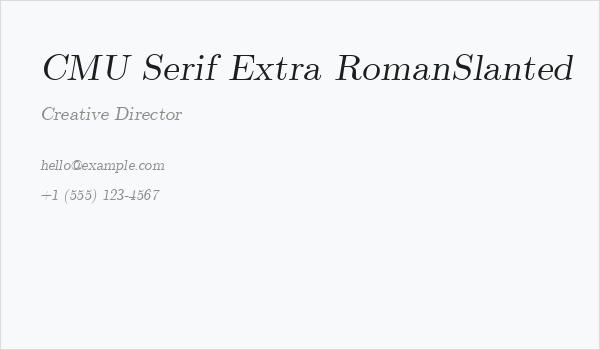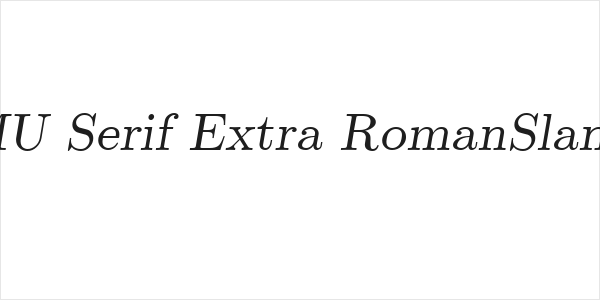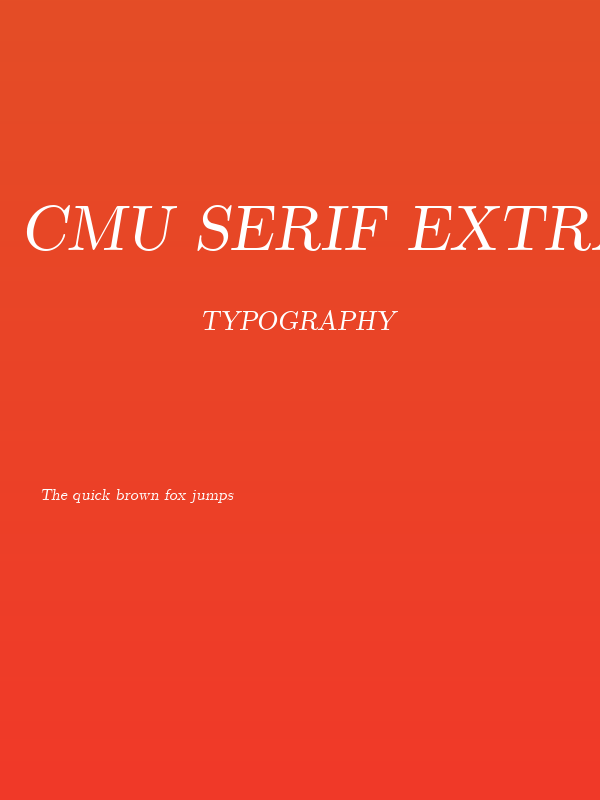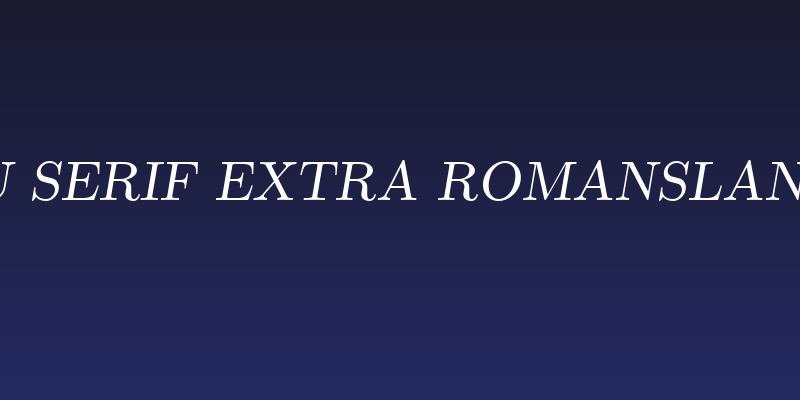
CMU Serif Extra RomanSlanted Font
CMU Serif Extra RomanSlanted Description
This font exhibits a classic serif style with a distinct slant, giving it an elegant and sophisticated appearance. The characters are well-defined with sharp serifs and a moderate contrast between thick and thin strokes, enhancing readability while maintaining a refined look. The uppercase letters are tall and commanding, while the lowercase letters are proportionate and balanced. Numbers are clear and consistent, making them suitable for both text and numerical data. Special characters are designed to complement the overall aesthetic, ensuring versatility across various applications.
| Proposed Projects | Ideal for editorial design, formal invitations, branding, and academic publications. |